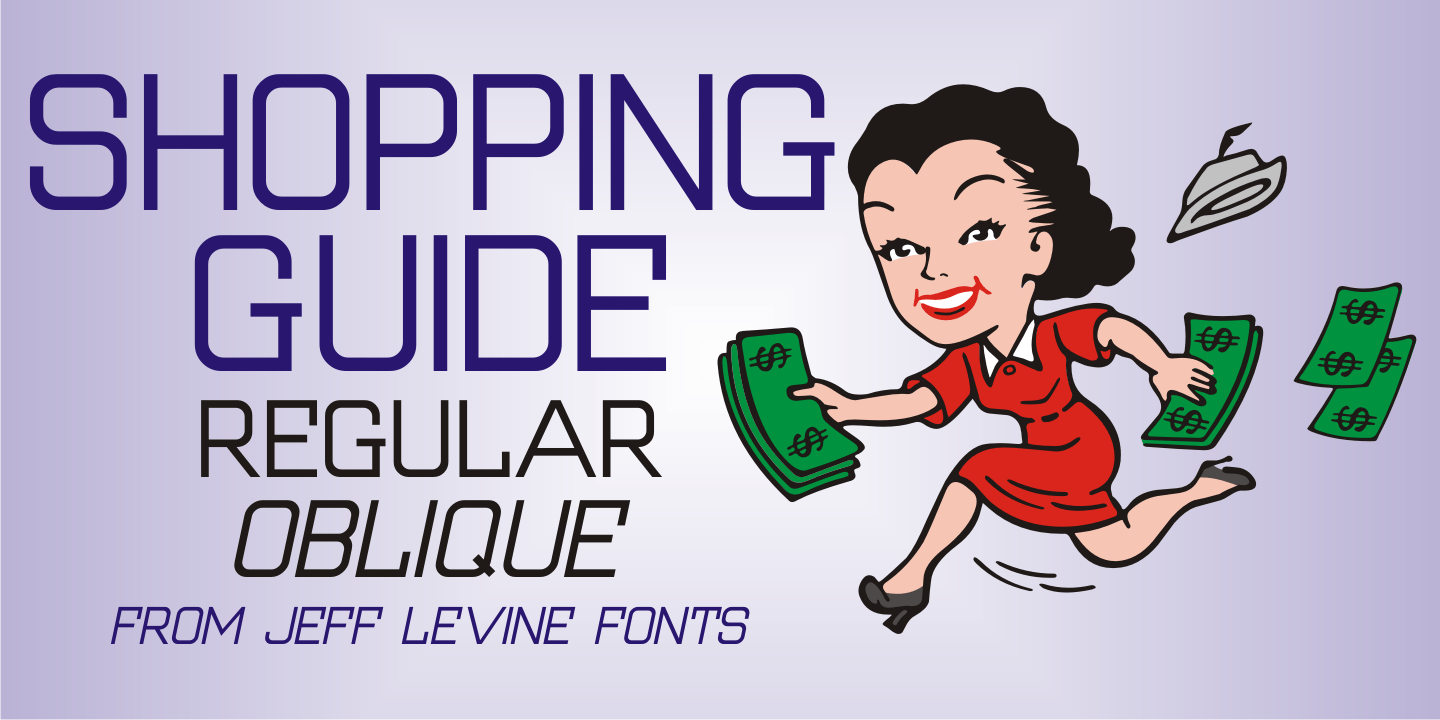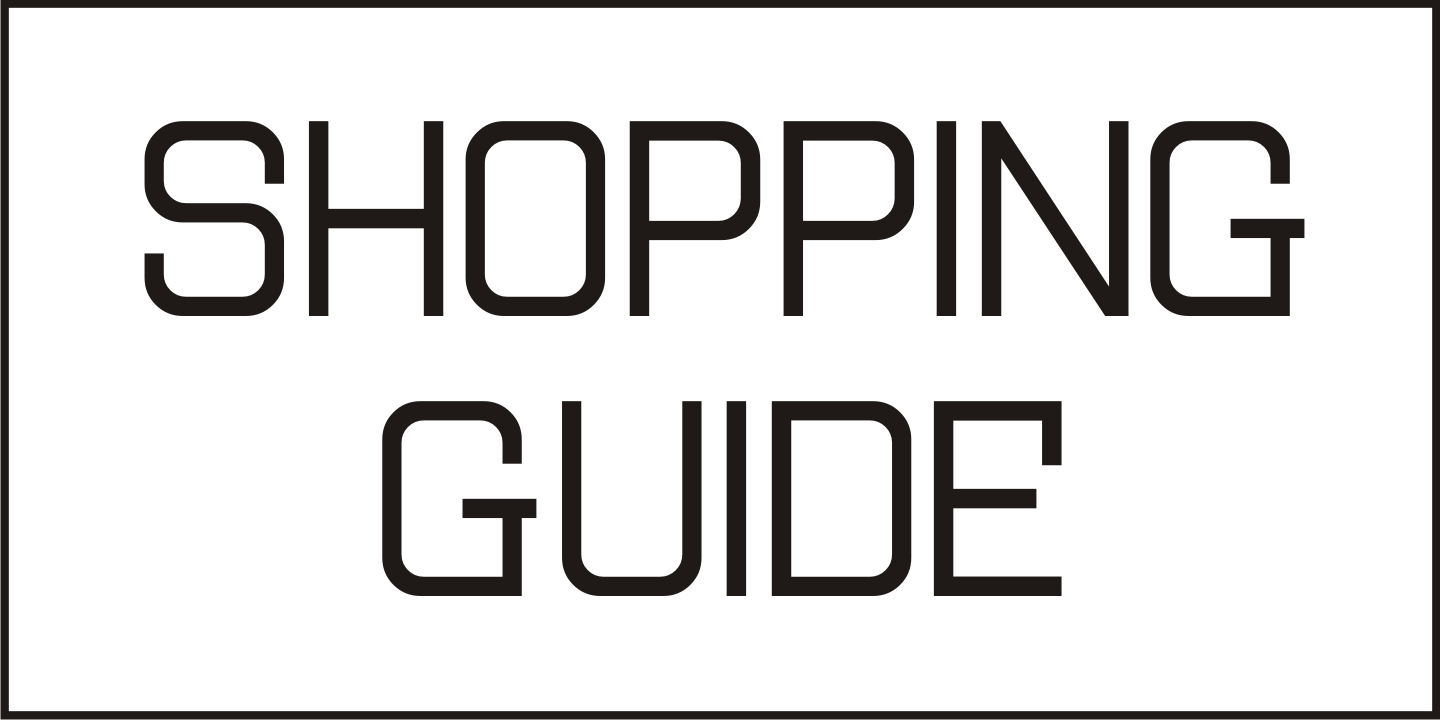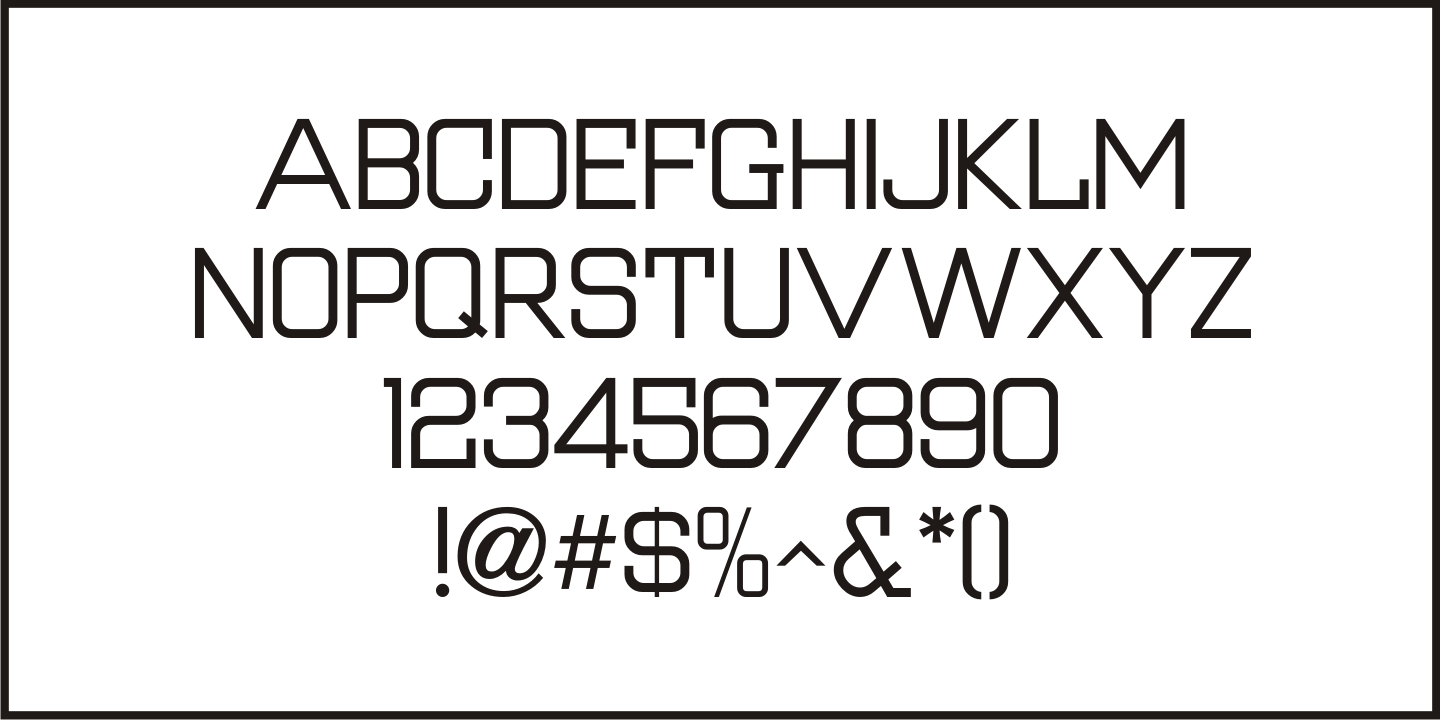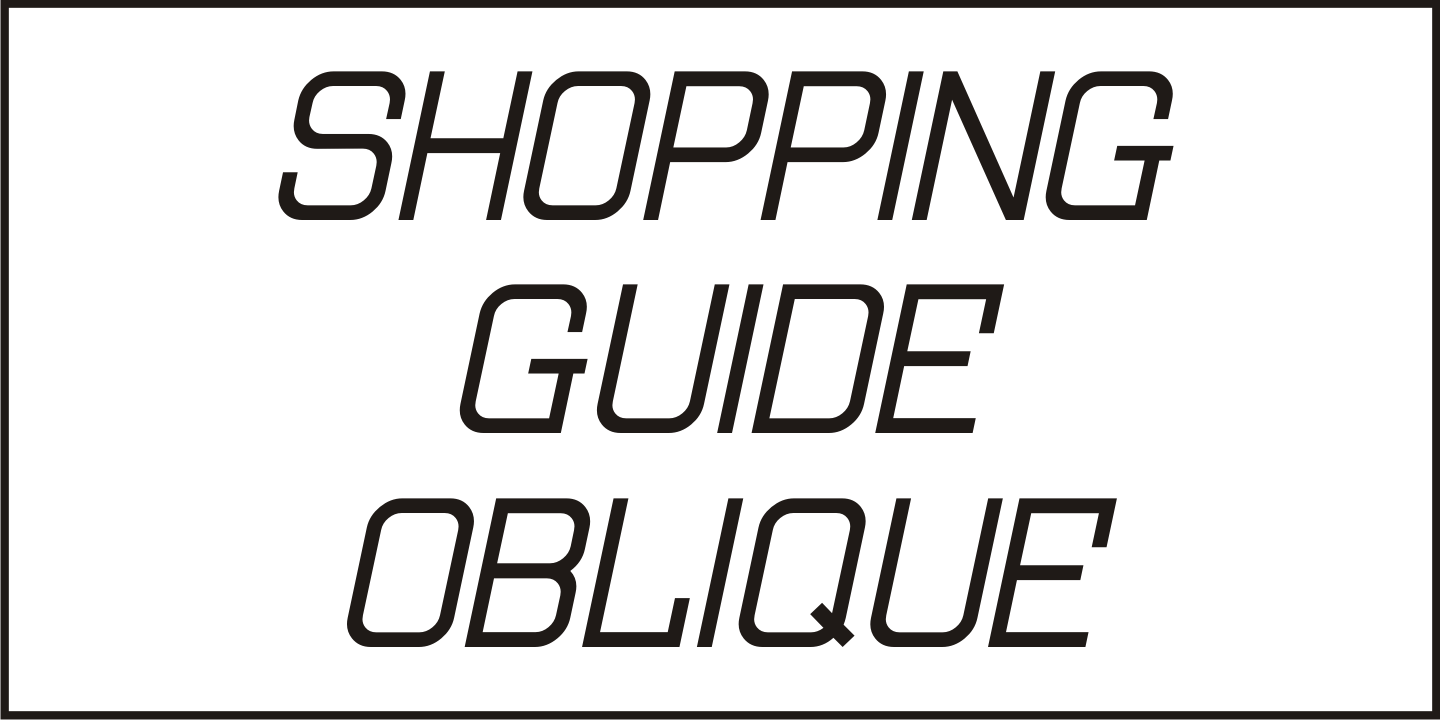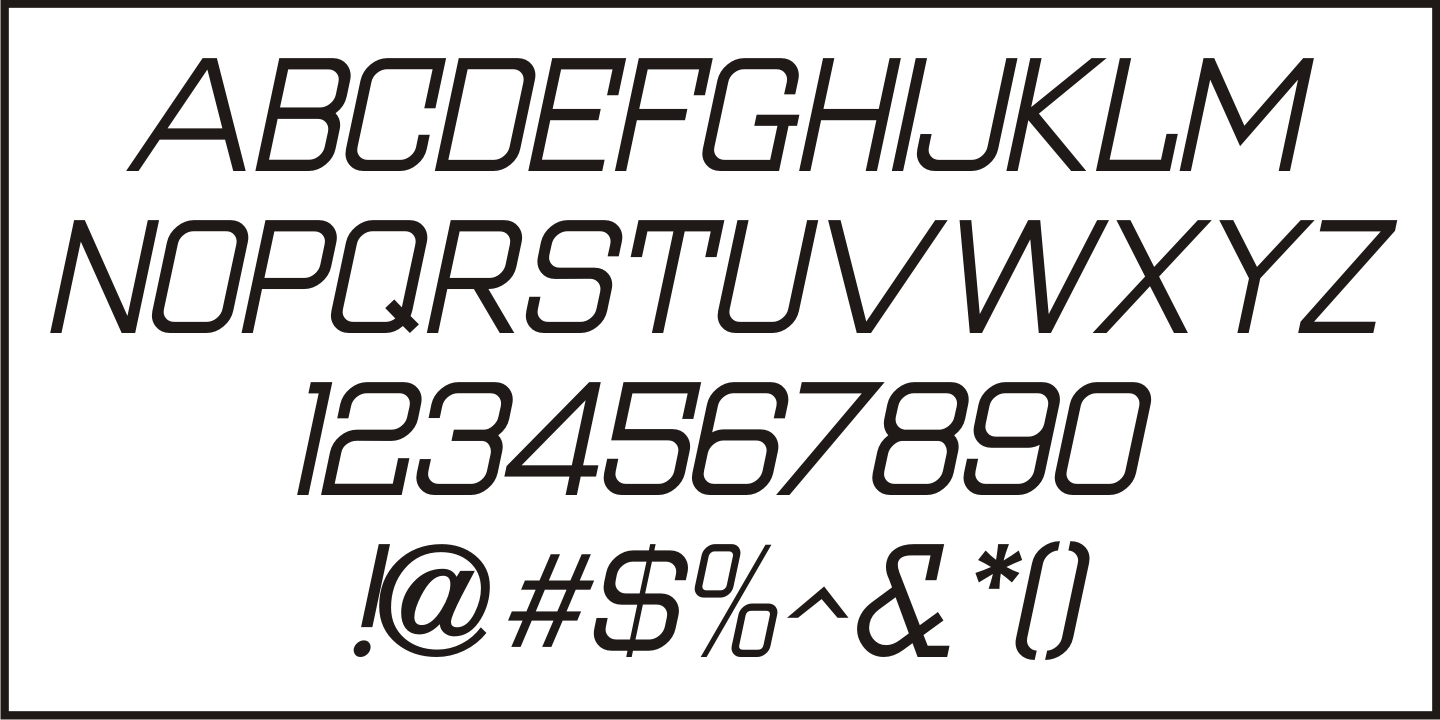
Shopping Guide
While watching the 1947 holiday classic 'Miracle on 34th Street', one scene in particular presented a chance to develop a retro type design.
'Kris Kringle' suggests to a mother visiting with her child in the Macy's toy department to try Gimbel's for a toy she couldn't find at the store. The news of this behavior reaches Mr. Macy himself, who embraces the practice as a brilliant marketing strategy.
A number of departments are then presented with reference books containing competitor ads, and the visual of the cover stating 'R.H. Macy & Co. Shopping Guide for the Convenience of Our Customers' shows on screen.
The thin, Art Deco sans serif monoline with a few serif-like hooks added onto some characters became the basis for Shopping Guide JNL, which is available in both regular and oblique versions.